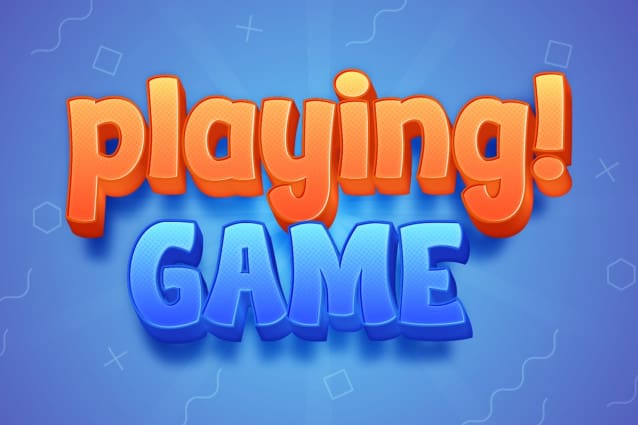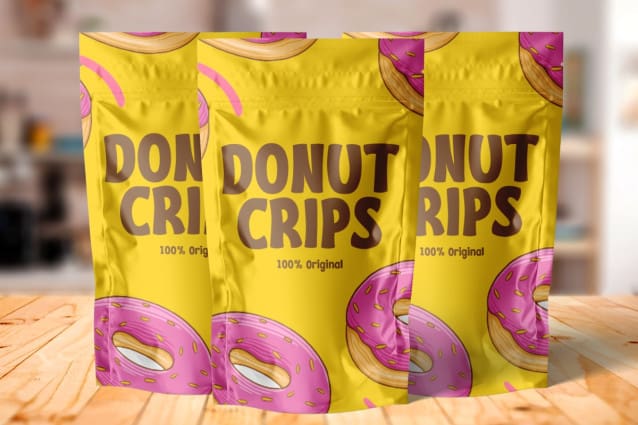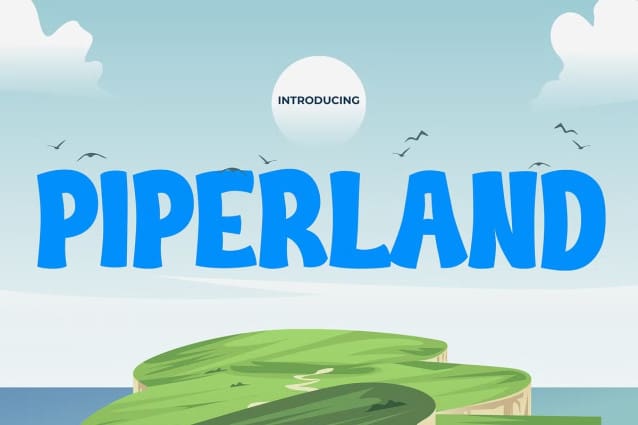
Piperland Playful Font
Piperland Playful Font, the ultimate font fusion for both gaming and kids-themed designs. With its dynamic and energetic appearance, “Piperland” captures the essence of youthful enthusiasm and gaming excitement. Each letter is carefully crafted to evoke the spirit of fun and exploration, making it the perfect choice for game interfaces, character dialogues, and level designs. Whether you’re developing a whimsical mobile game for kids or creating graphics for a gaming event targeted at children, “Piperland Playful” infuses every element with a sense of joy and wonder.
Designed to ignite the imaginations of both kids and gamers alike, “Piperland Playful ” brings a unique blend of whimsy and adventure to your projects. Its bold strokes and vibrant colors make it stand out in any gaming environment, from playful platformers to thrilling adventure games. With “Piperland,” you can create captivating title screens, engaging character dialogues, and visually stunning level designs that will keep players of all ages entertained for hours on end. Let “Piperland” be your go-to font for injecting a sense of fun and excitement into your gaming projects, ensuring that every player experience is filled with wonder and delight.